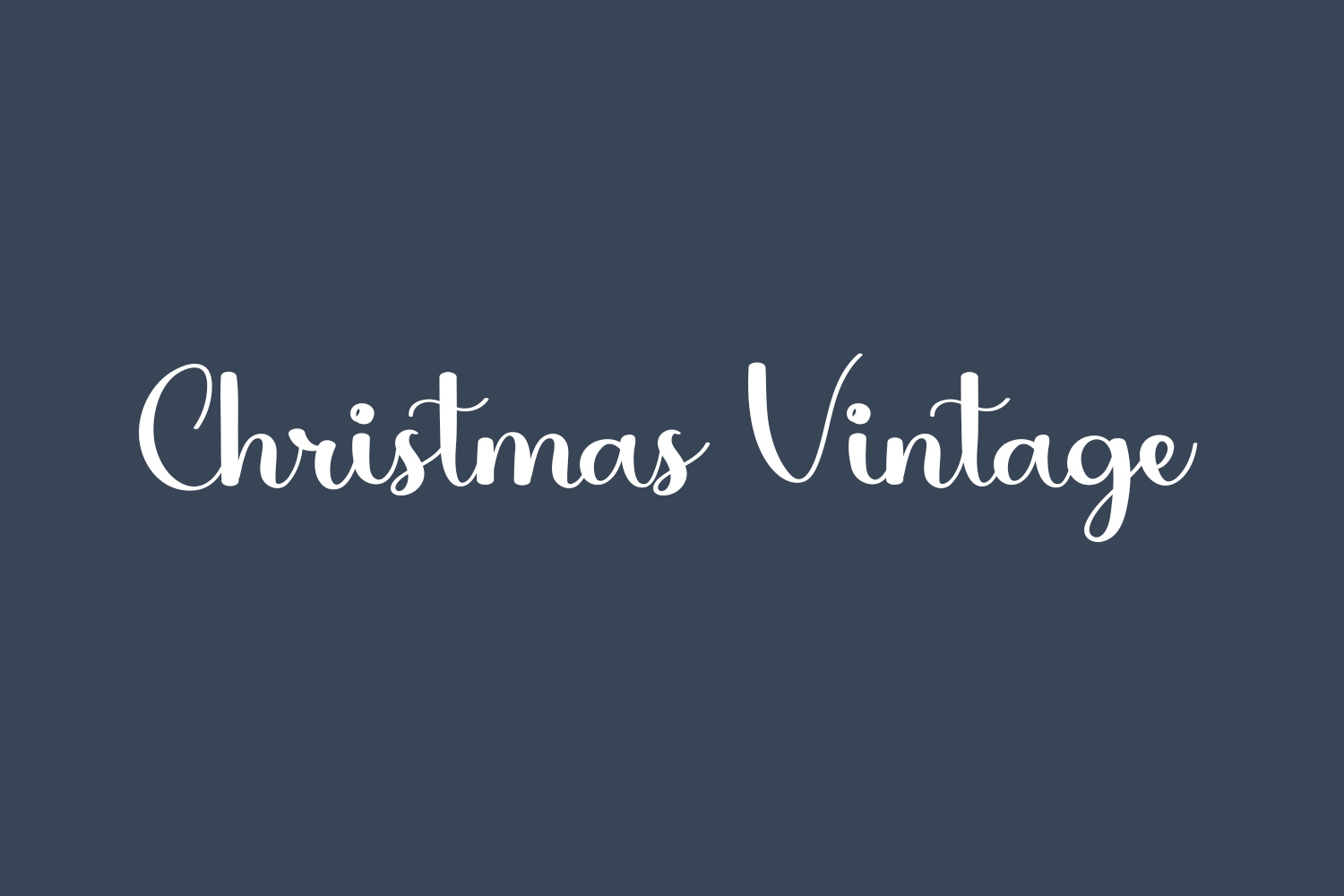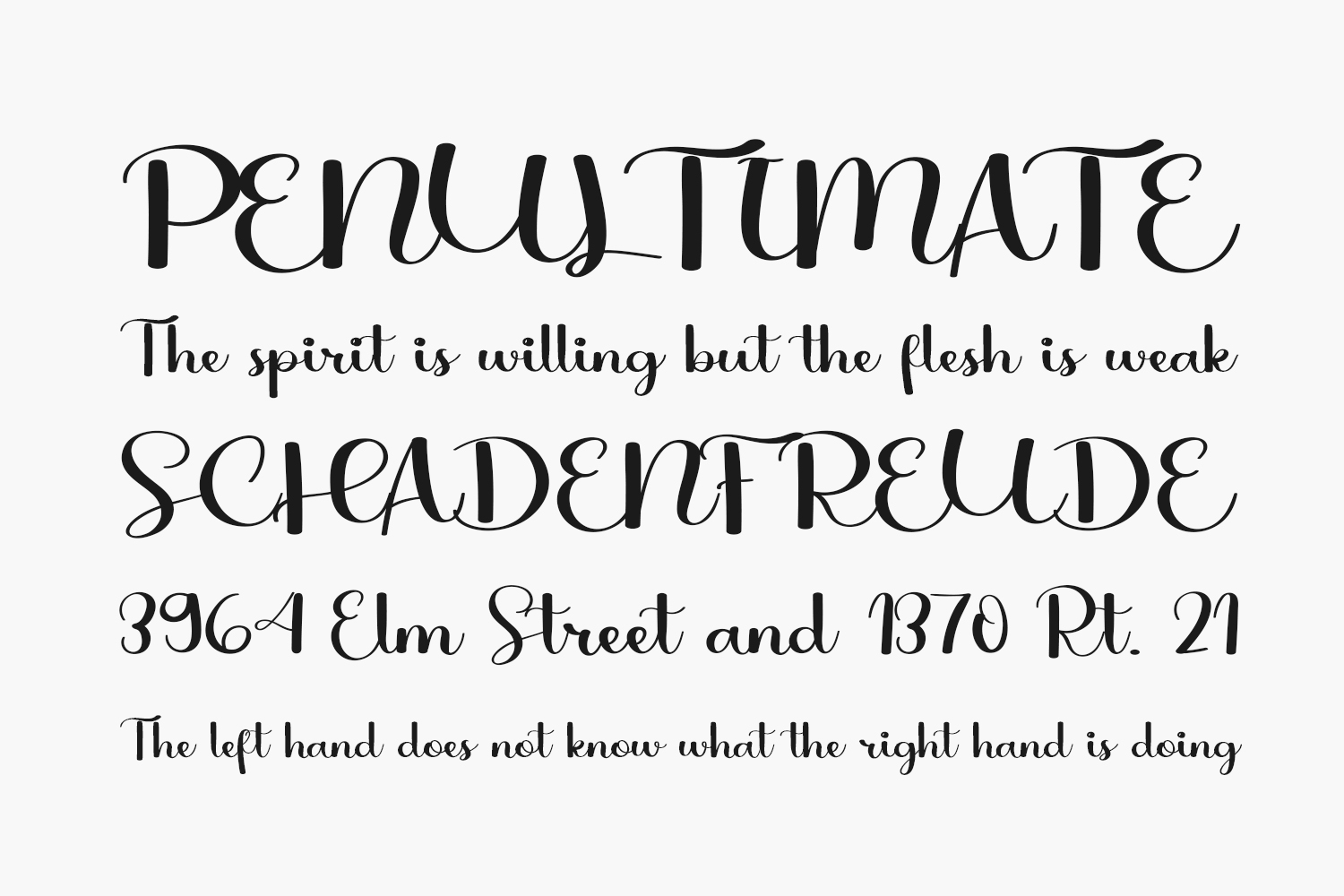
Christmas Vintage Free Font is a lovely and delicate script font that exudes elegance and class. This font was particularly crafted for those who need a beautiful and refreshing look to their designs. Christmas Vintage Free Font was designed by Erik Supriyanto and is free for personal use only. Please purchase the full version for commercial use.